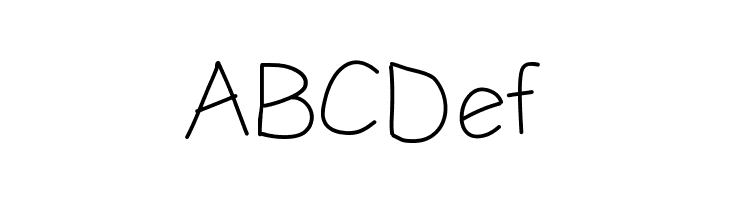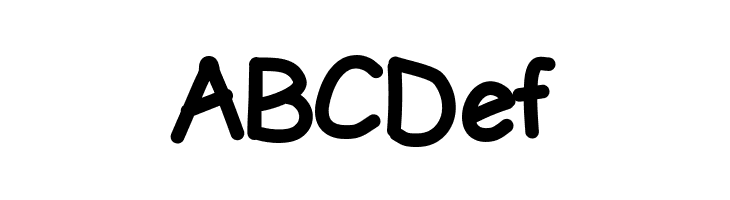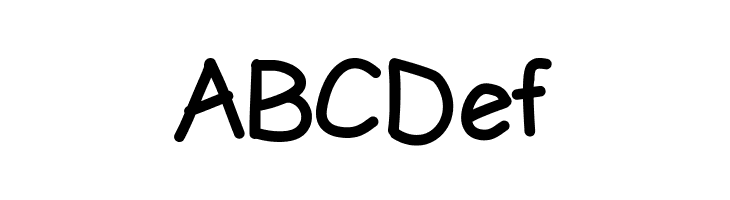
LDFComicSans Font
A playful, informal font with rounded, hand-drawn strokes.
LDFComicSansBold Font
A playful, bold font with a hand-drawn, comic-style appearance.
LDFComicSansLight Font
A playful, informal font with rounded, smooth letterforms.
LDFComicSansHairline Font
A playful, thin, and informal font with a hand-drawn feel.